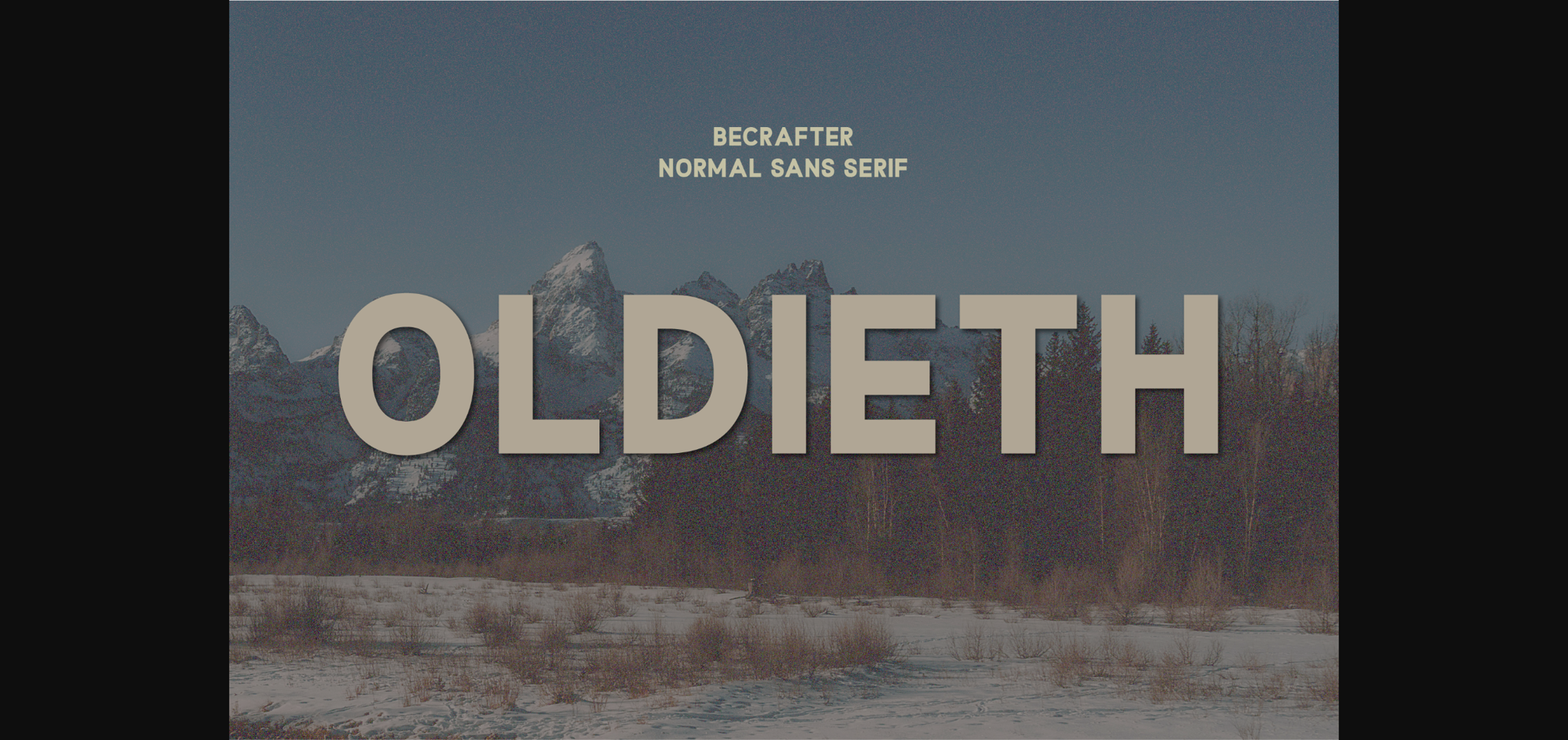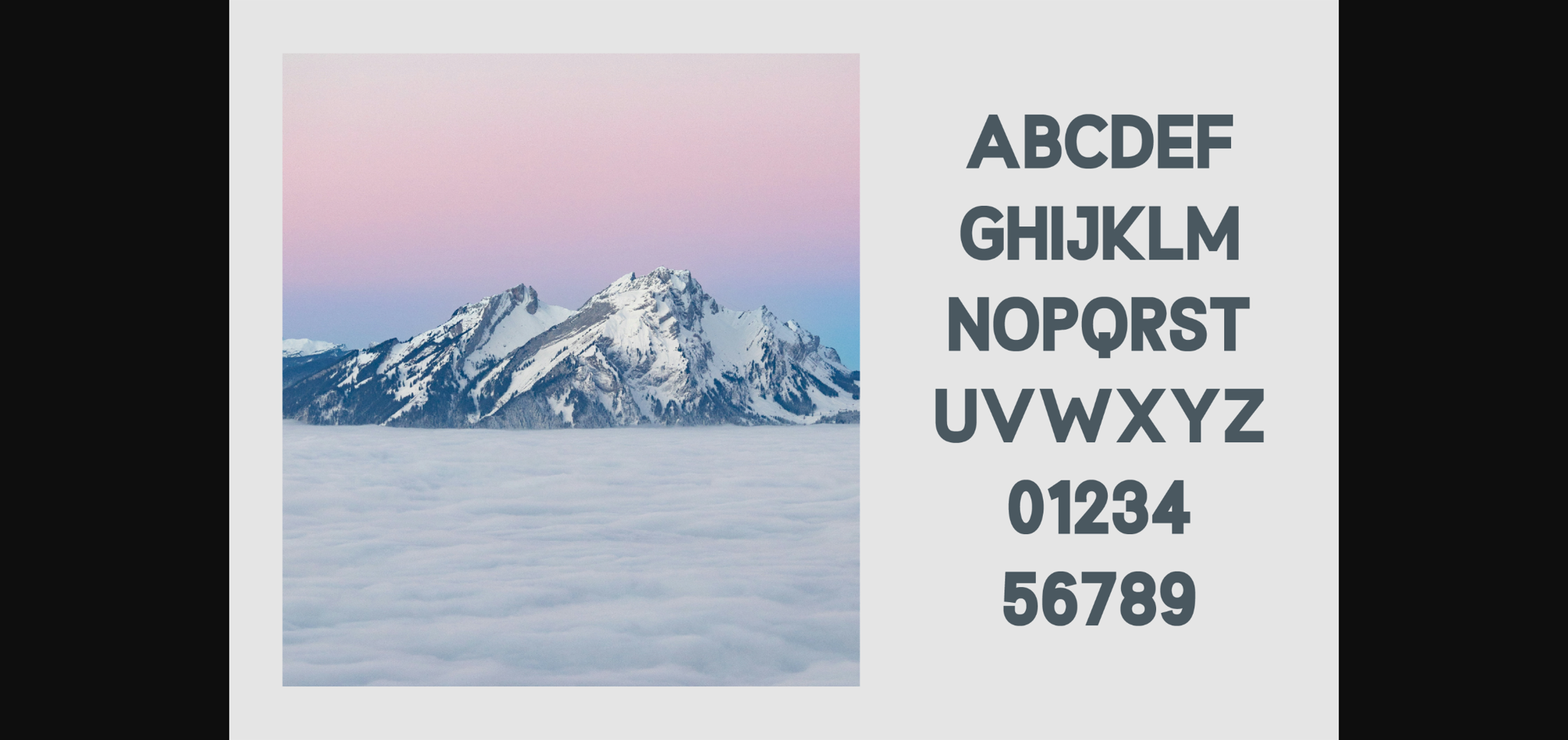
Oldieth Font
About Oldieth Font
Emanating boldness and confidence, Oldieth is a dynamic upper-case vintage sans serif font. Boasting an aesthetic that’s reminiscent of yesteryears, its mighty and robust lettering is wonderfully versatile, fitting perfectly in any setting. Ideal for crafting captivating logos to designing charming printed materials, Oldieth is a complete package, including not just uppercase, but also numbers and punctuations. With Oldieth at your disposal, let your imagination take the lead and create more!